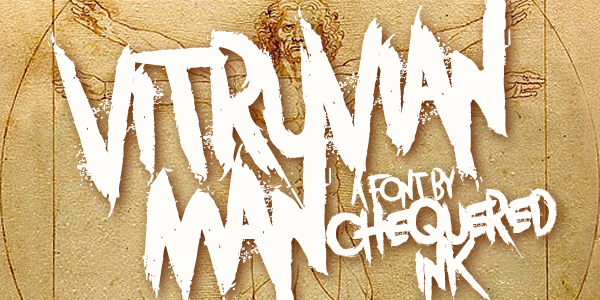
Free Vitruvian Man Font
Featuring the adorable free vitruvian man font. Go give some love to Font Space for creating this top-notch typeface. Showcase your designs like a graphic design pro by adding a new touch with this fancy font.